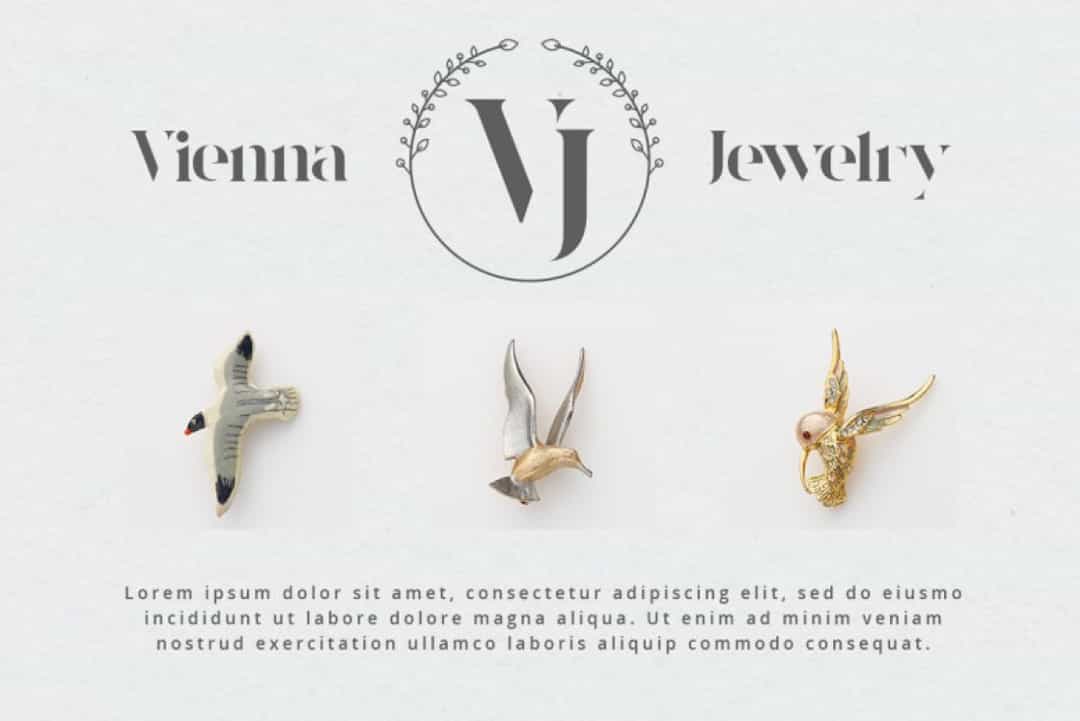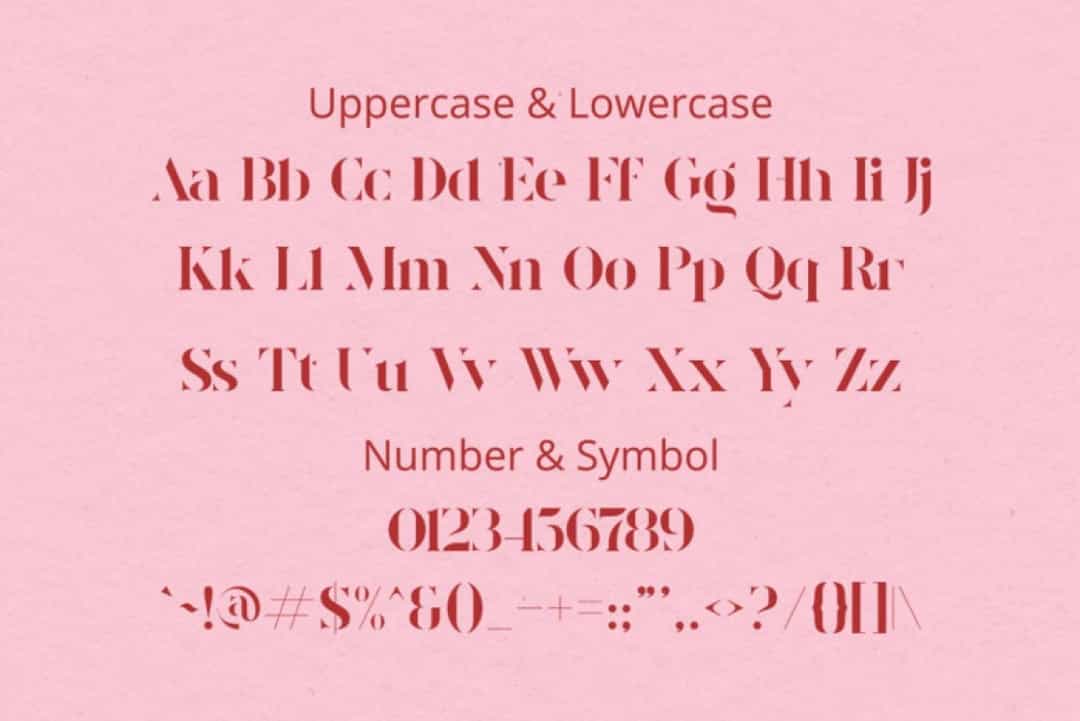
Discover Goodies Font, part of the Serif Display Logos collection—a versatile and unique font perfect for adding a personal touch to your projects. Download it for free and enjoy crafting designs with style, from invitations to social media posts. This font is available exclusively for personal use, giving you the freedom to create without limits. Unlock your creativity with Goodies Font today!
Speak Hi to “Goodies” Modern Stencil Logo Serif Font. With it’s unique design and luxurious appearance, this typeface is great for creating elegant logos as well as editorial design magazines for women or cosmetic brand promotions, contemporary advertising campaigns such as invitation cards with art quotes or home decor, book, cover titles to commemorate special occasions, contemporary advertising campaigns or contemporary advertising campaigns for any other purpose.